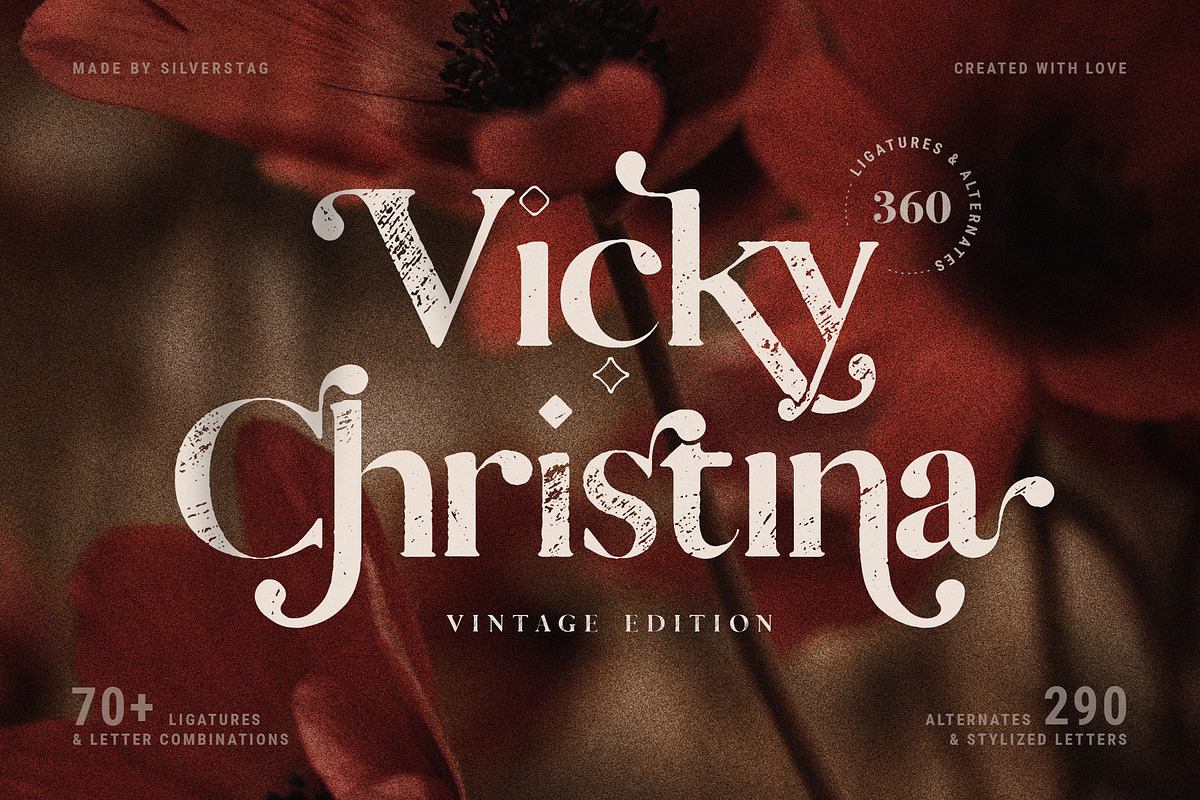
Vicky Christina - Vintage Serif Font Free Download
Please note, to use this font for commercial purposes, you must purchase the full version. Vicky Christina is a sophisticated vintage serif font that exudes timeless elegance and charm. Perfect for logos, branding, invitations, and editorial projects, this font adds a classic, refined touch to your designs. Whether you're working on a retro-inspired brand, an elegant invitation, or a vintage-style editorial, Vicky Christina brings a distinctive, polished look to your work. Test it out and enjoy free download access for personal use. Experience the vintage sophistication of Vicky Christina - Vintage Serif Font Free Download before purchasing the commercial license. Elevate your designs with the timeless elegance of Vicky Christina.